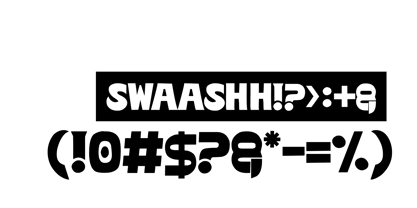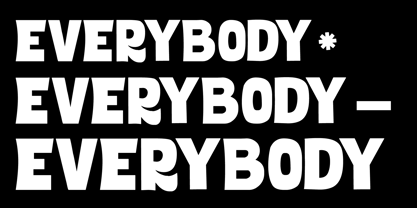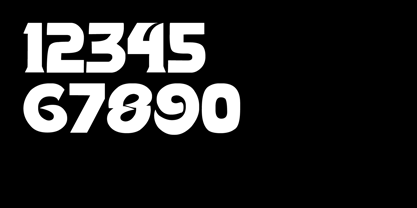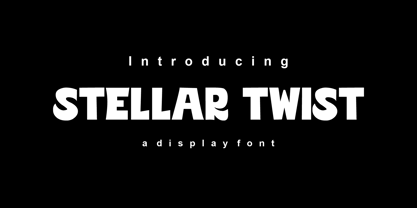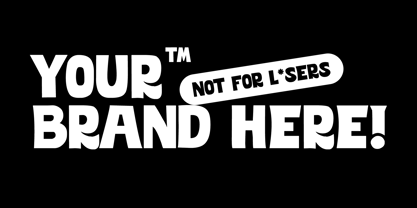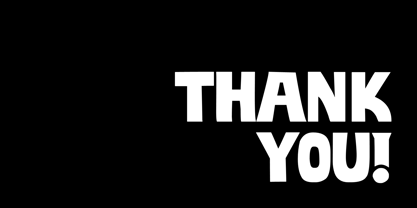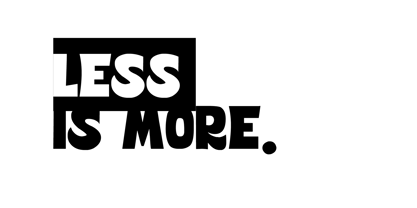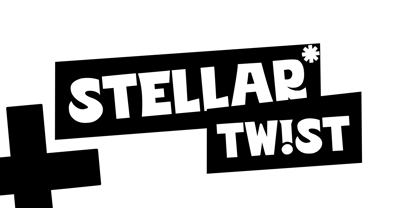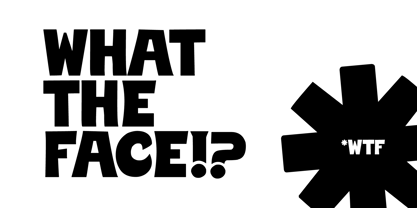
Stellar Twist
by Pitvlas Type
The Stellar Twist Font Family was designed by Yoga Dwi Cahyono and published by Pitvlas Type. Stellar Twist contains 2 styles and family package options. More about this family
The typeface "Stellar Twist" is a bold and modern display font characterized by its playful and dynamic letterforms. Its unique curves and creative twists make it stand out, adding a sense of fun and energy to any design. This font is ideal for use in branding, posters, headlines, or any project that requires a strong and eye-catching visual impact. Its versatility and contemporary style make it suitable for both digital and print media, enhancing the overall design with a distinctive and engaging appearance.